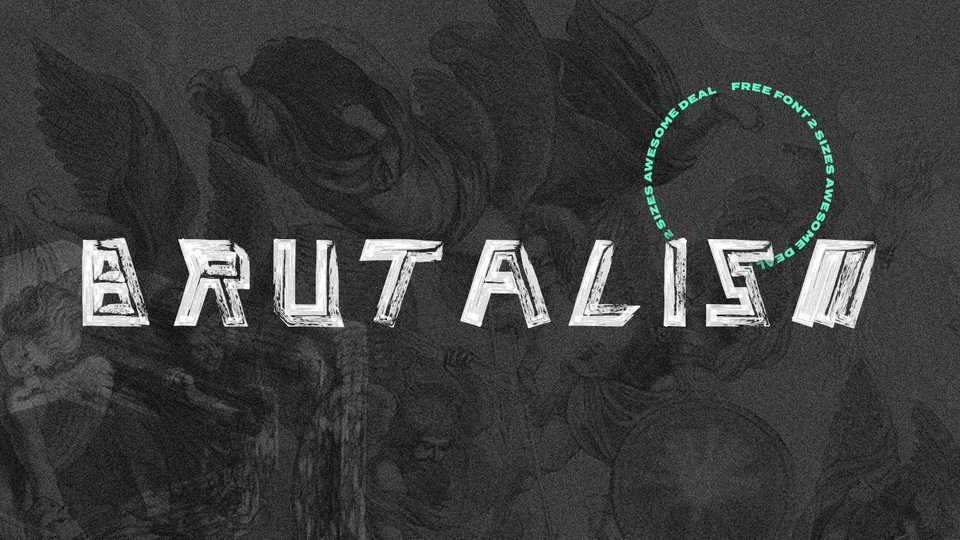
Download Brutalism font, a bold display typeface inspired by brutalism in architecture. With its strong look and sharp geometric shapes Brutalism is perfect for posters, headlines and impressive artworks.
Designer: Luis H. J. Rapp